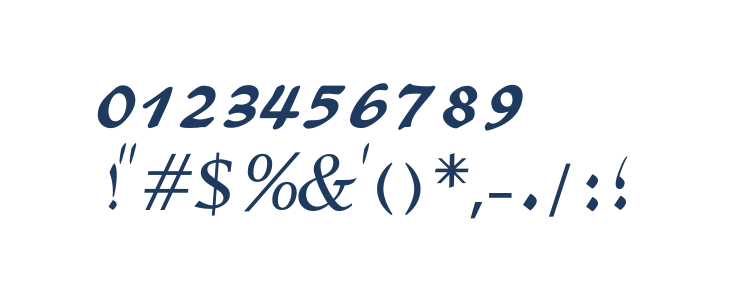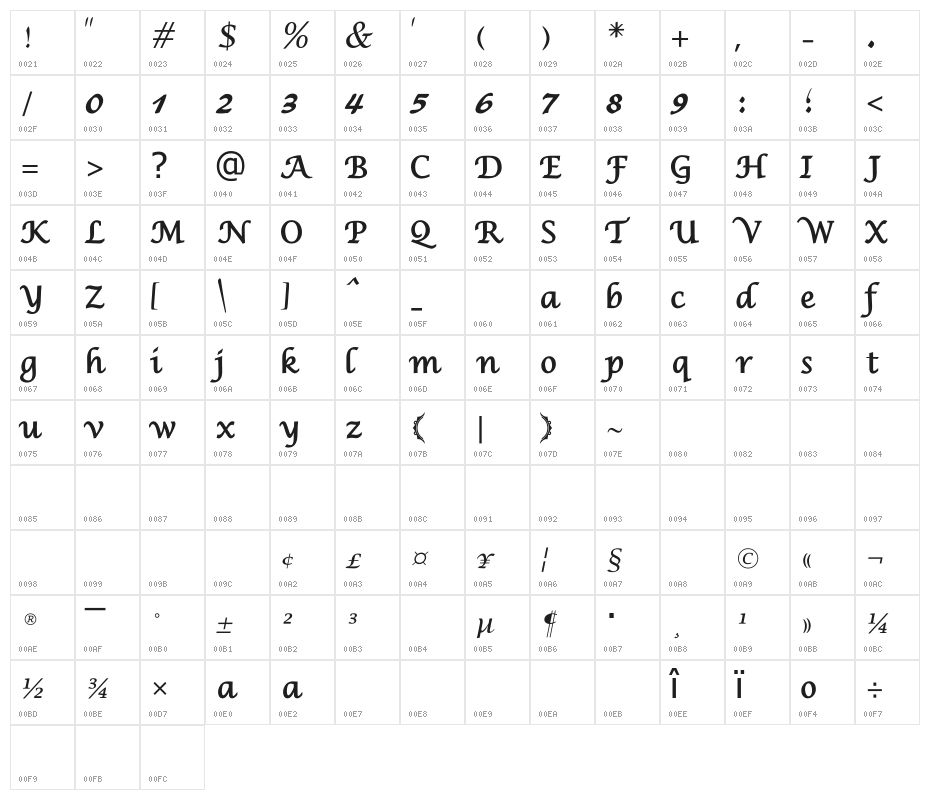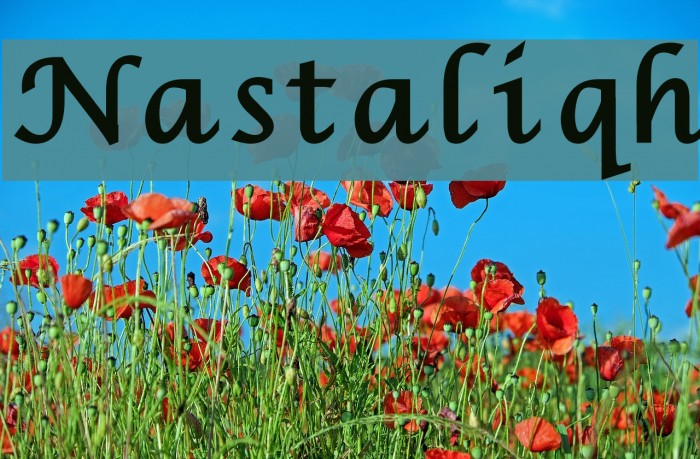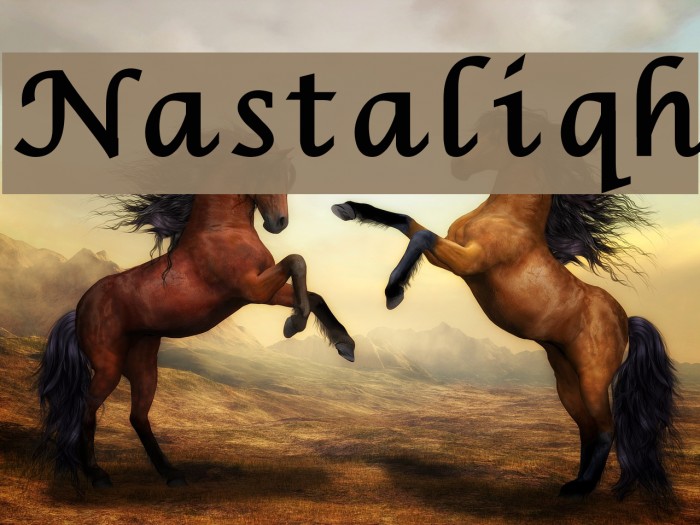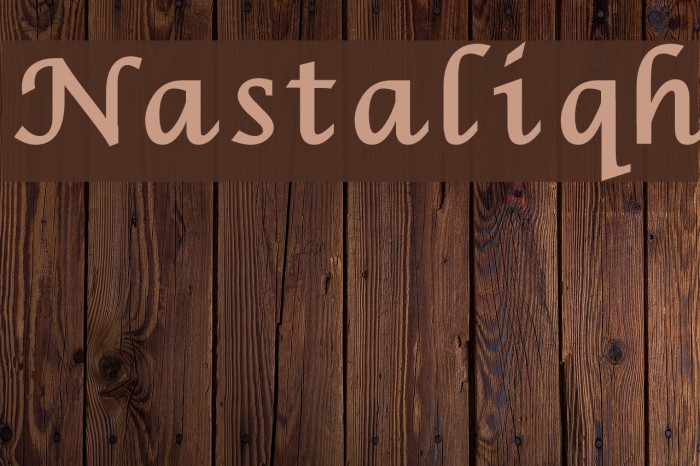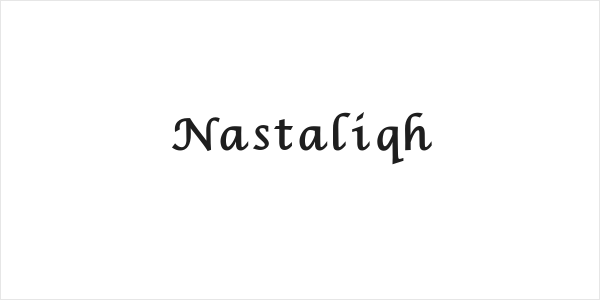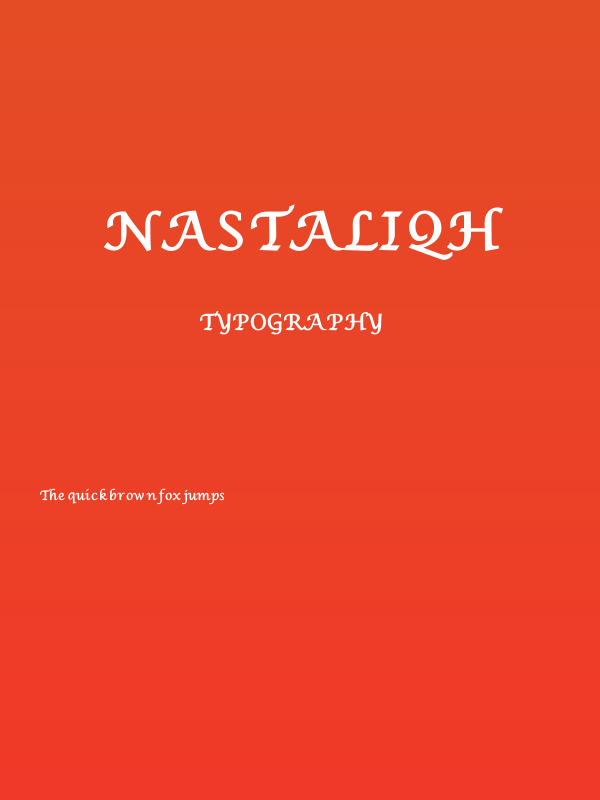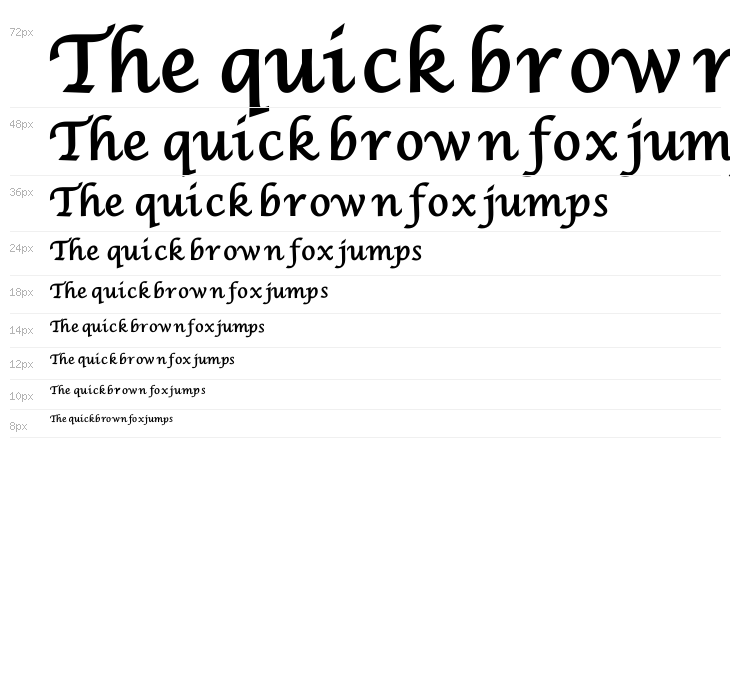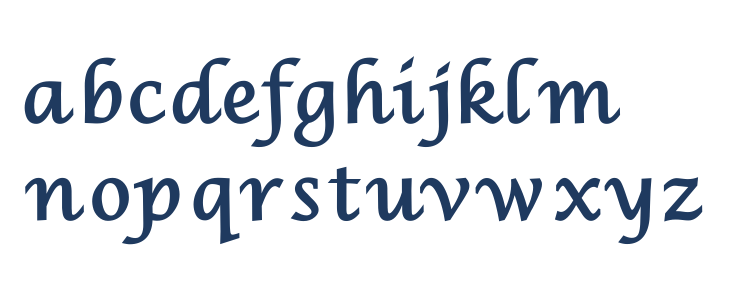
Nastaliqh Font
Nastaliqh Description
This font features a flowing, cursive style with elegant curves and a calligraphic influence. The uppercase letters are bold and slightly slanted, giving a dynamic and sophisticated appearance. The lowercase letters maintain a consistent flow, with smooth transitions between strokes, enhancing readability while retaining an artistic flair. The numerals are distinct and bold, matching the overall aesthetic of the font. Special characters are crafted with the same attention to detail, ensuring they blend seamlessly with the alphabetic characters. This font's unique style makes it suitable for projects that require a touch of elegance and creativity.
| Proposed Projects | Ideal for wedding invitations, elegant branding, artistic posters, and decorative book covers. |